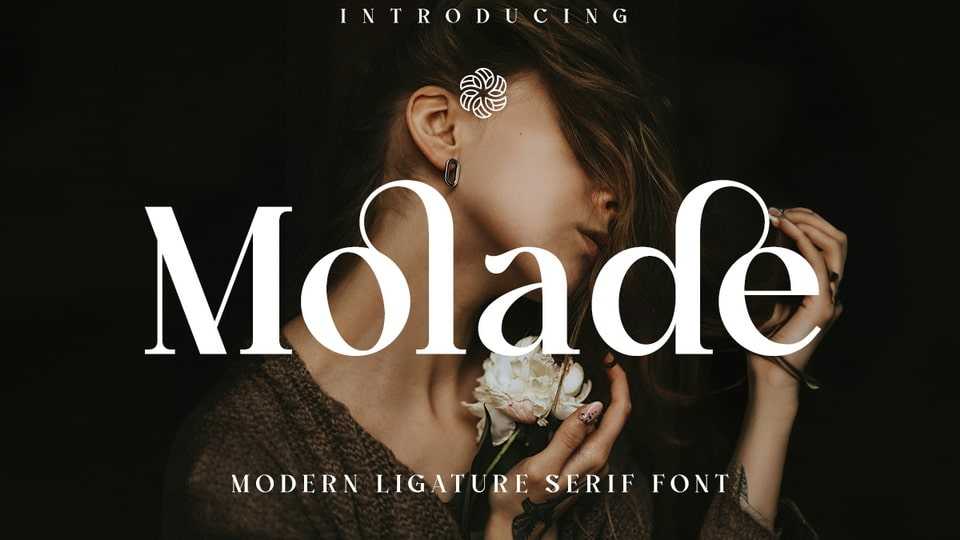
Download Molade font, a modern ligature serif typeface with italic style. Perfectly crafted for sophisticated and high-end designs, Molade brings a touch of modern and refinement to any project.